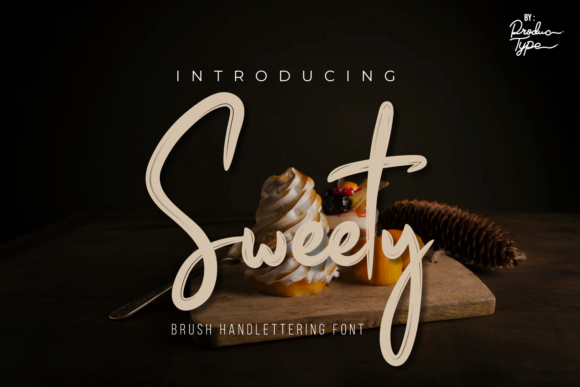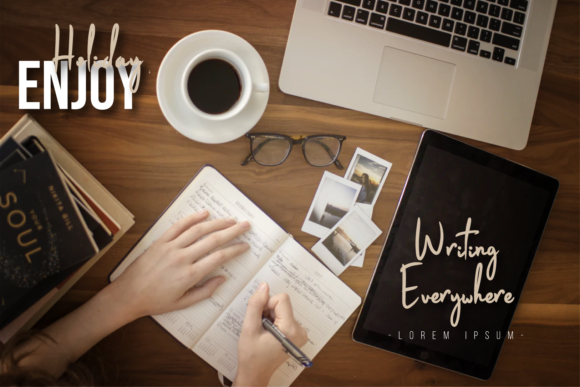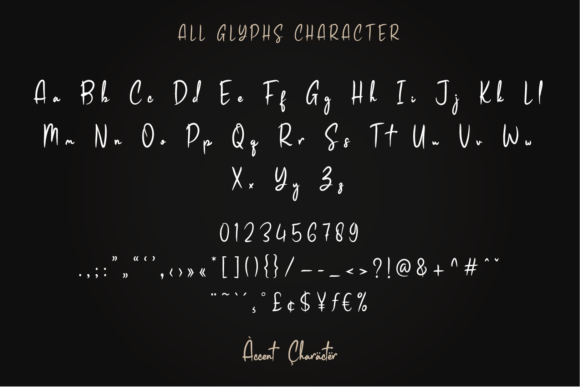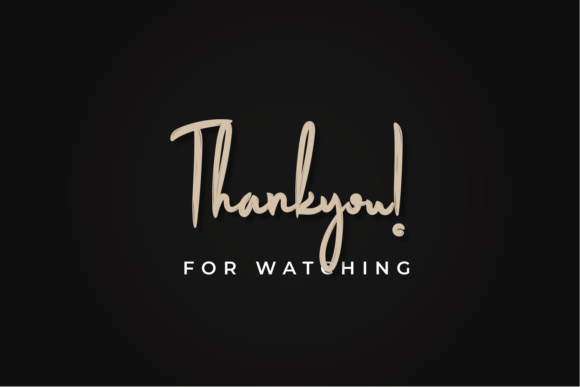
About Sweety Font
Introducing Sweety: The Cute and Flowing Handwritten Font
Experience the sweetness of Sweety, a cute and flowing handwritten font that exudes charm and delight. Whether you’re working on logos, branding, invitations, quotes, posters, social media graphics, or any other design project that requires a touch of cuteness, Sweety is the perfect choice to add a charming appearance.
Sweety’s cute and flowing style brings a sense of playfulness and warmth to your designs. Its smooth letterforms and artistic strokes make your text exude a delightful and captivating energy.
As a font that boasts versatility and charm, Sweety becomes the go-to choice for projects that demand a touch of sweetness and allure. Its handwritten appeal ensures that your work resonates with an authentic and charming look.
Embrace the sweetness of Sweety as you embark on your creative journey. Let it be the font that enhances your ideas, making them truly stand out and creating a sense of joy and cuteness in every endeavor.
As you explore the possibilities of Sweety, you’ll find it to be a font that adds charm to your designs with ease. Its flowing handwritten style transforms your work, ensuring that your logos, branding, invitations, and social media graphics leave a lasting impression.
So, use Sweety for any design projects that require a cute and flowing appearance. Embrace its charm and let it add a touch of playfulness and warmth to your creations. With Sweety as your font of choice, your designs will resonate with a sense of delight and cuteness, captivating your audience and leaving a lasting impression. Embrace the sweetness of Sweety and create projects that are truly charming and irresistibly delightful!